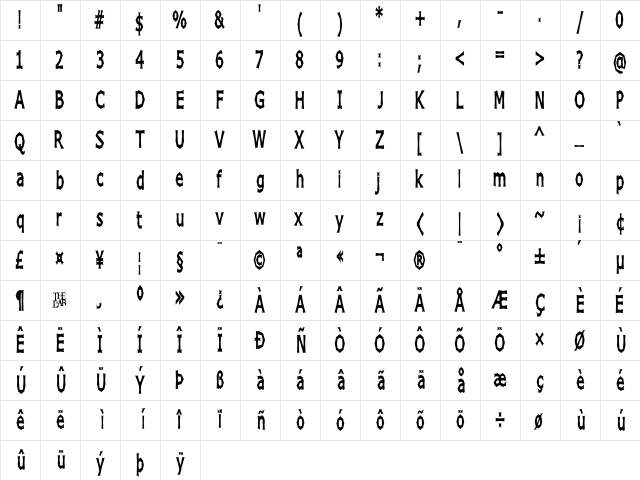
Chizz High Regular
| Designer | Graham Meade & Apostrophe |
Design Context for Chizz High Typeface
Chizz High offers clean, dependable letterforms without strong stylistic allegiance, making it a practical choice for designers who need flexibility.